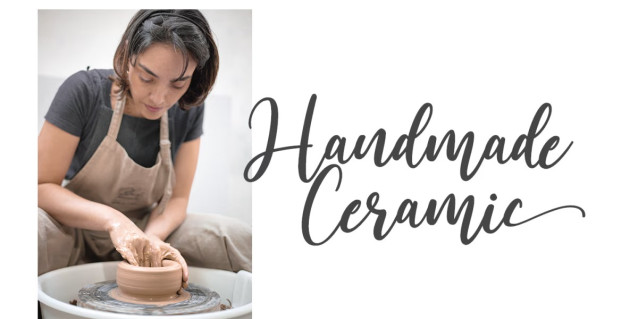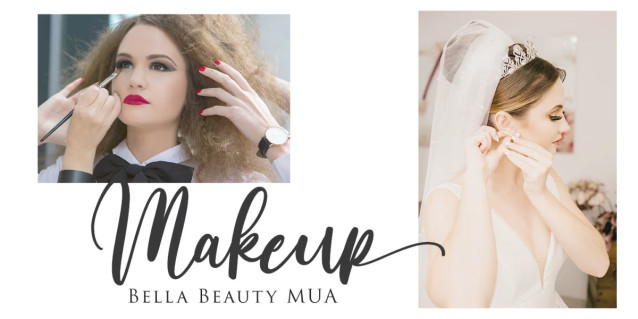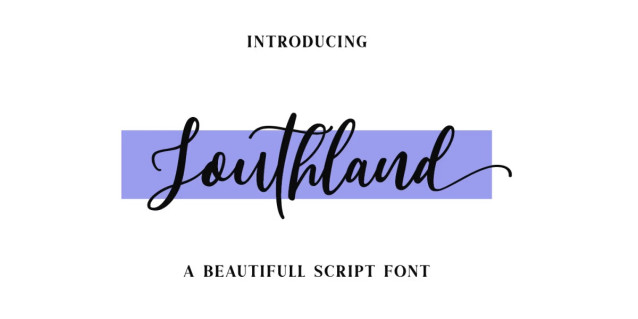
Southland Script Typeface
Southland Script Typeface is a modern and fashionable handwritten script that brings elegance and personality to your designs.Every curve is carefully crafted with smooth detail, making it perfect for branding, invitations, logos, quotes, packaging, and more.Whether you’re designing for fashion, lifestyle, or creative projects, Southland adds a touch of effortless sophistication to any layout.